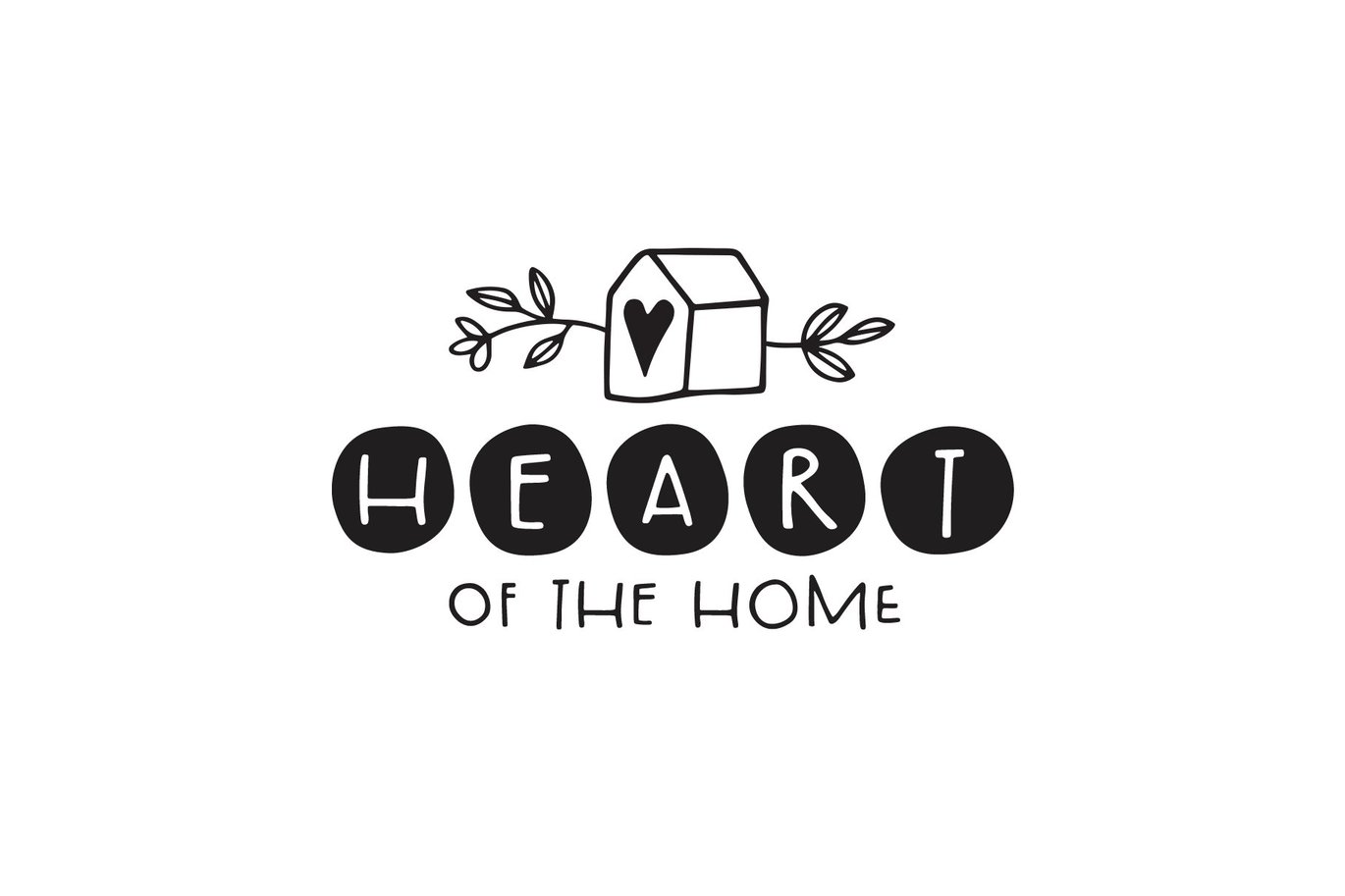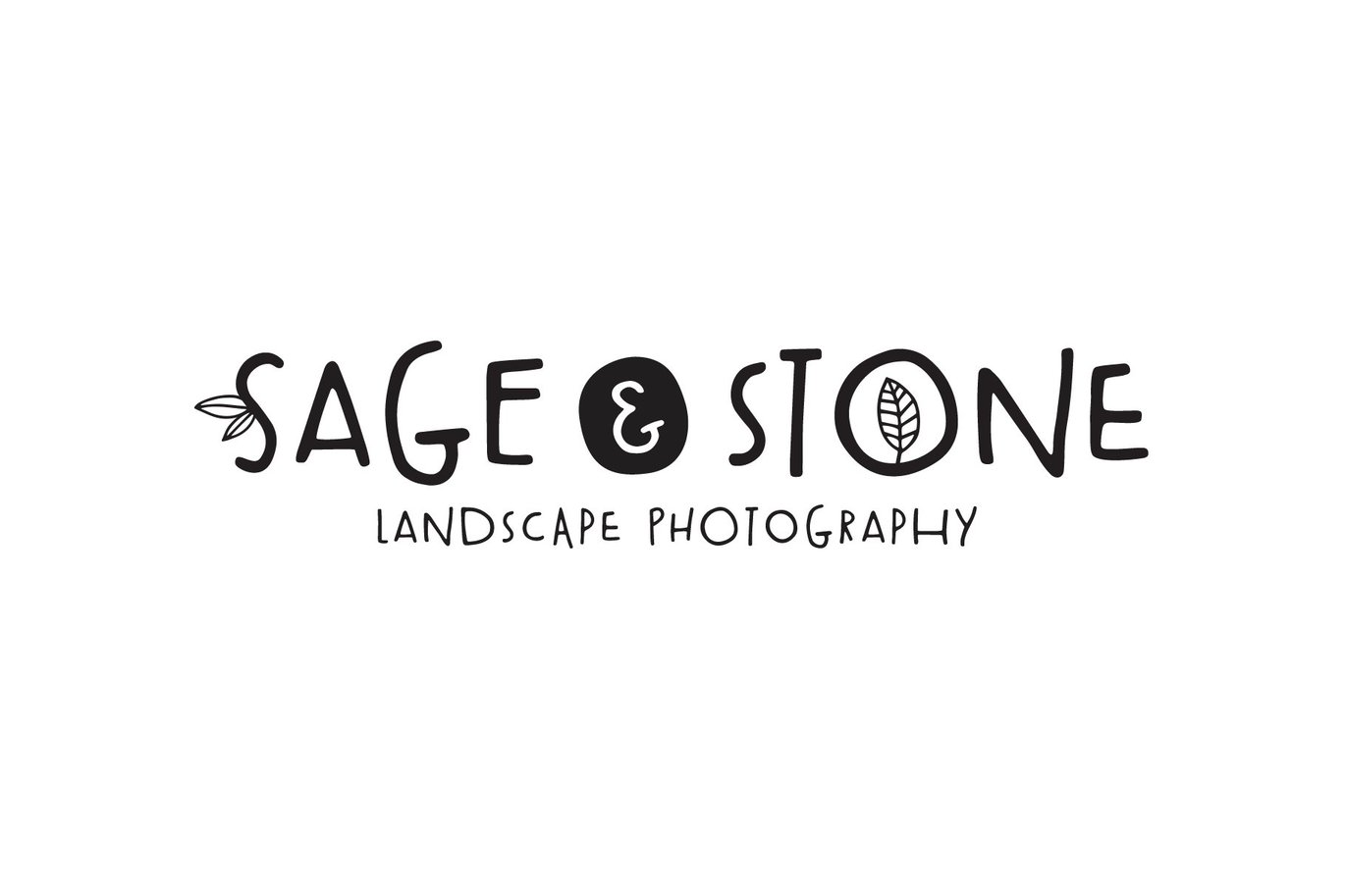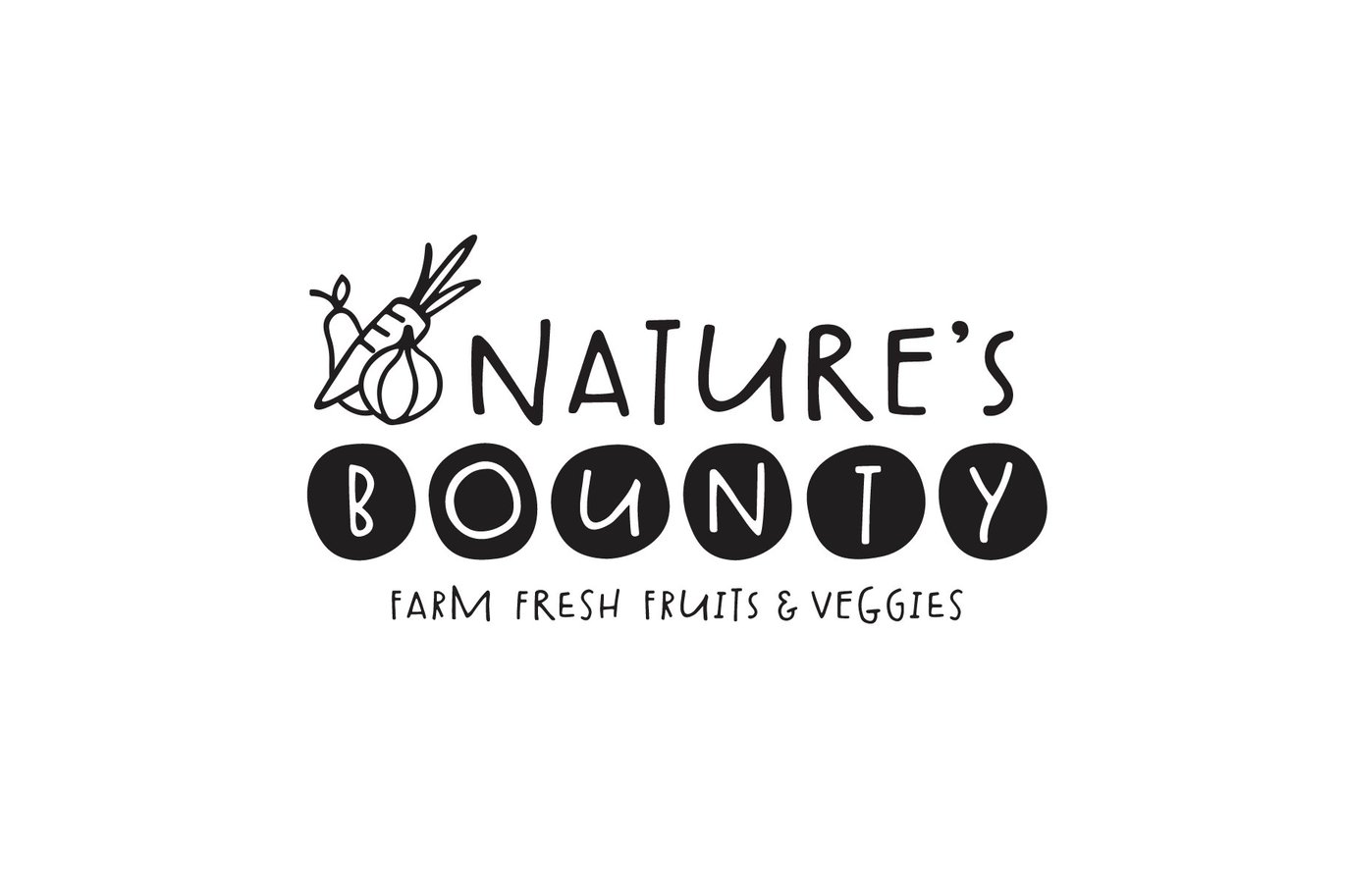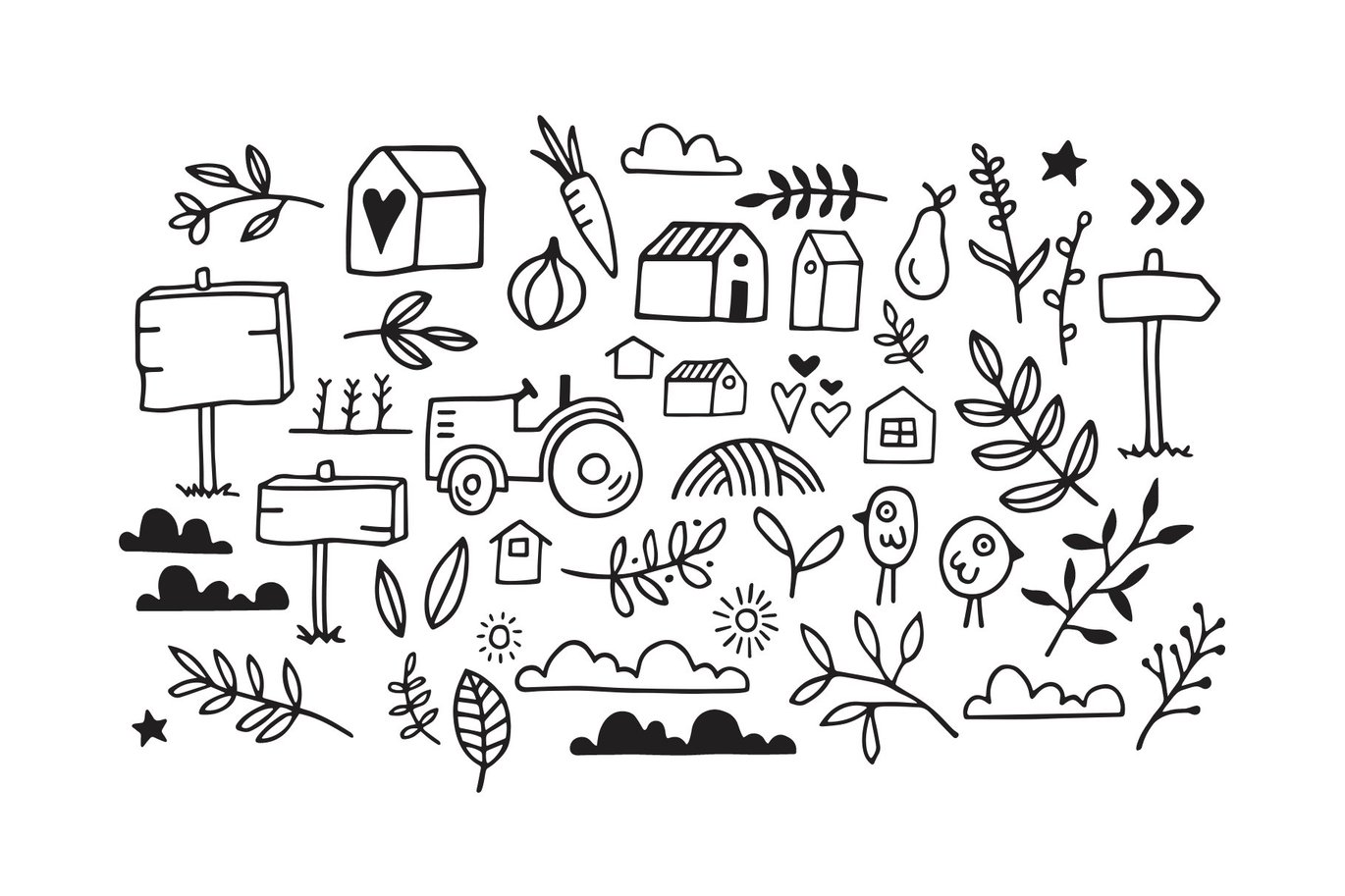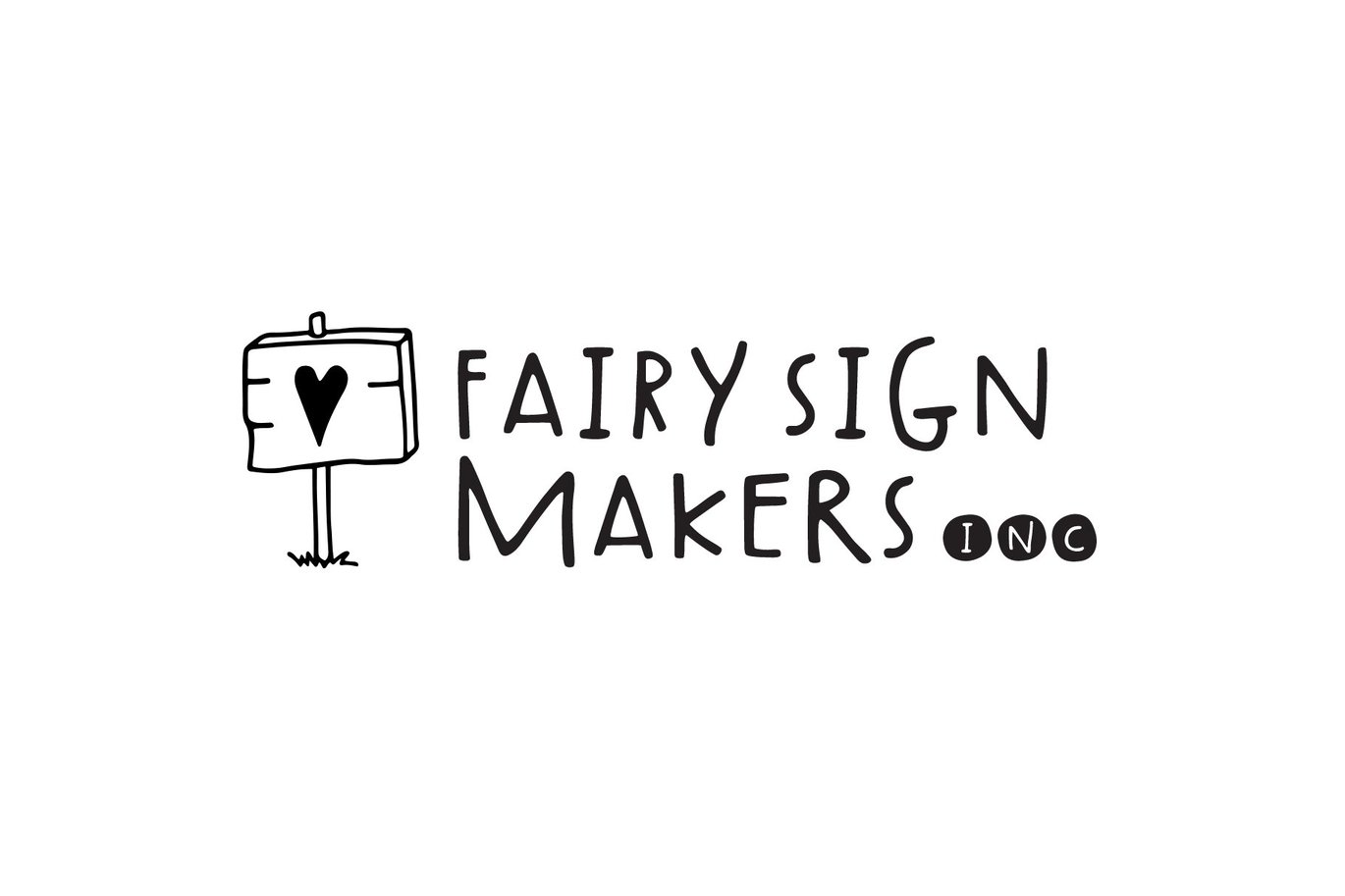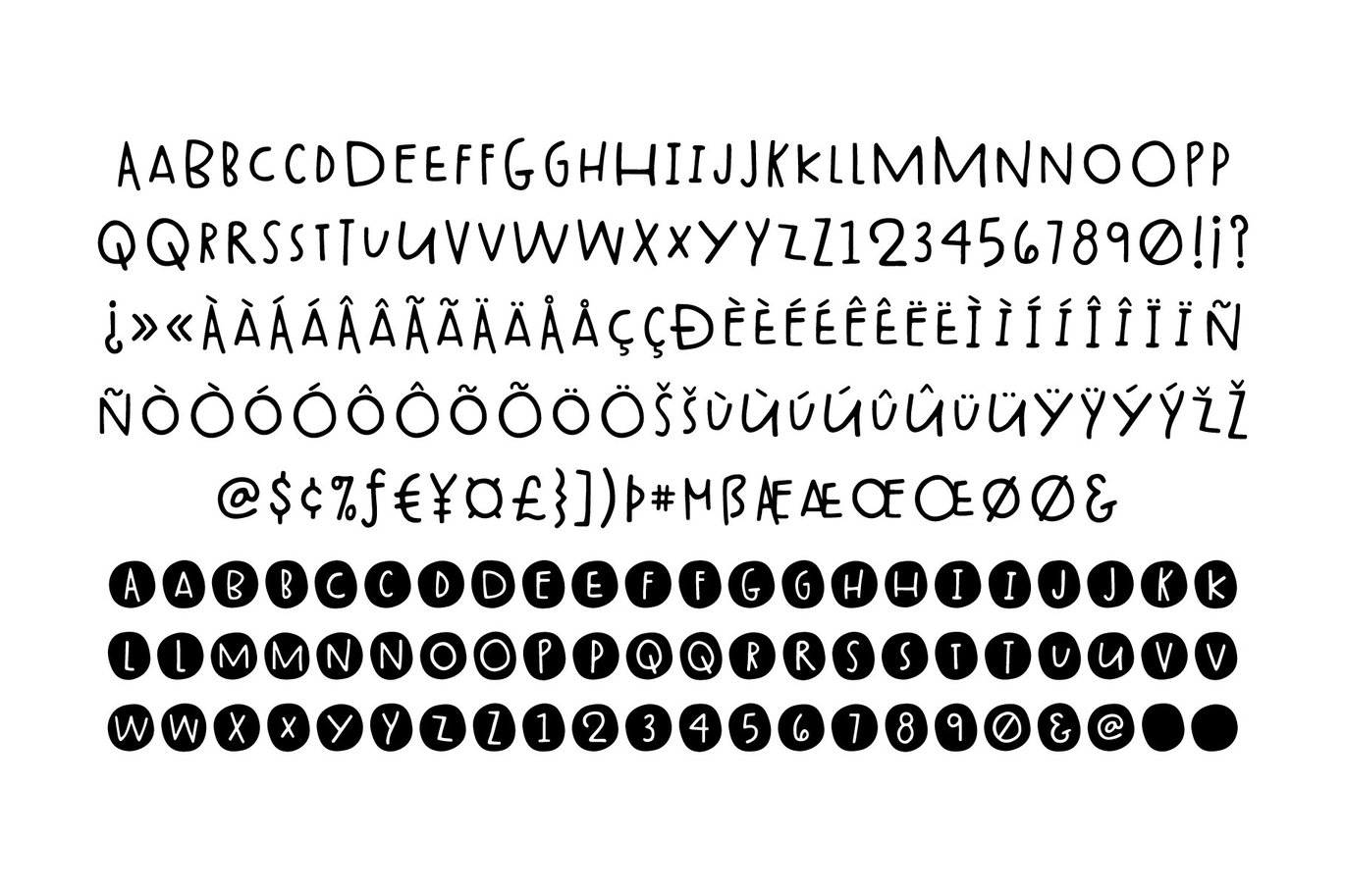
Cottage & Farmhouse Font
Cottage & Farmhouse is a charming, sweet, and simple sans that comes with an alternate version with characters in dots and a bunch of fun, nature-themed doodles.